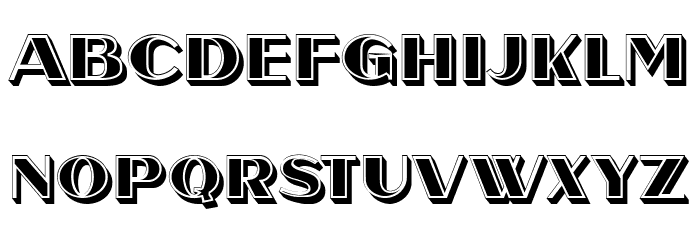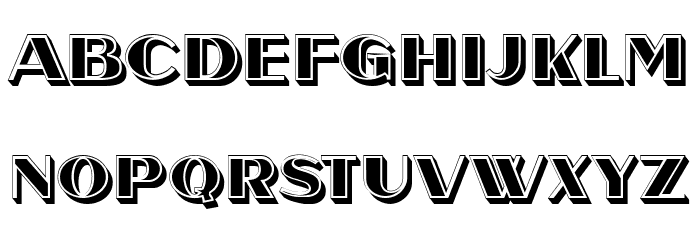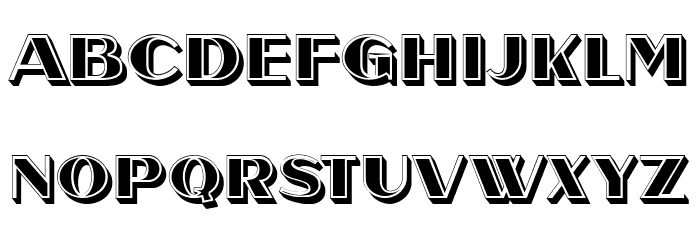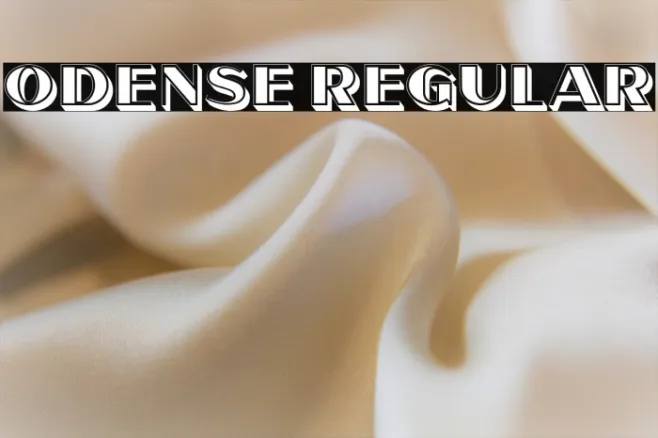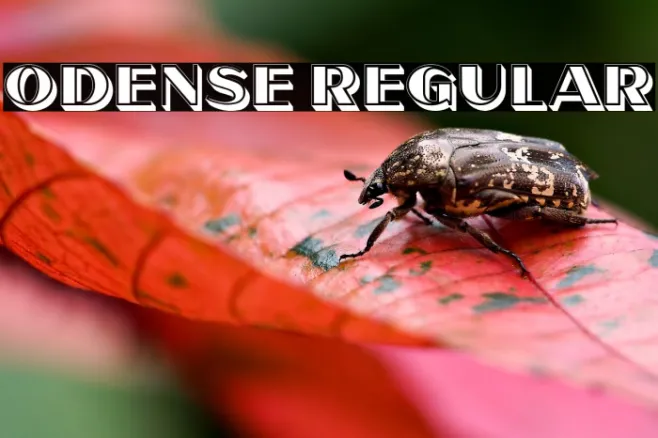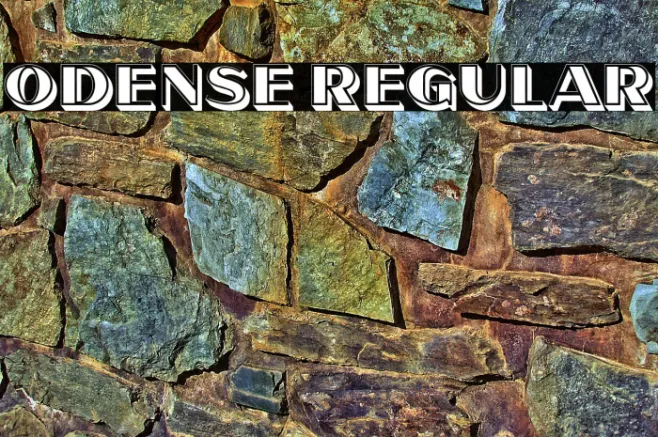
Odense Regular Font
This font features a bold, three-dimensional appearance with a strong shadow effect that gives it a striking and impactful look. The characters are uppercase, with a geometric and structured design that emphasizes their boldness. The shadowing adds depth, making each letter stand out prominently. The font's style is reminiscent of vintage signage, combining a classic serif structure with modern, decorative elements. Its bold and dynamic presence makes it suitable for eye-catching designs.
A bold, three-dimensional font with strong shadow effects and a vintage-inspired style.
- Font: Odense Regular
- Proposed Projects: Ideal for poster designs, branding, headlines, and any project requiring a bold, attention-grabbing typeface.
- Overall Style: Vintage, Decorative